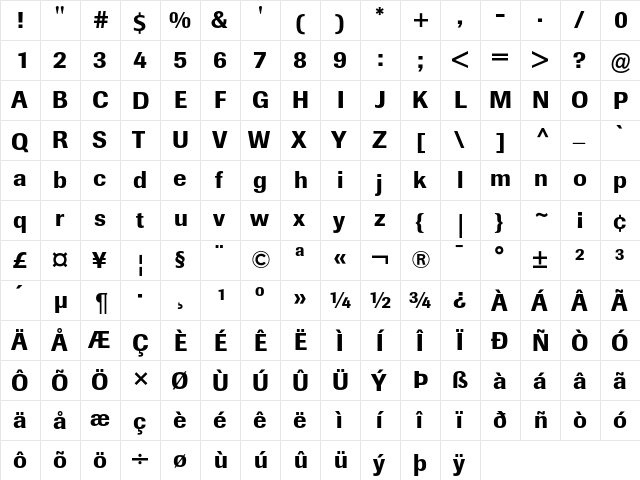
Berthold Imago Medium
Design Context for Berthold Imago Typeface
Berthold Imago takes a measured approach to typography — its balanced proportions and neutral character make it a reliable workhorse for both digital and print work.